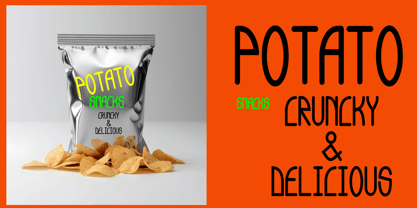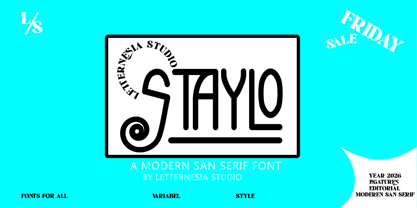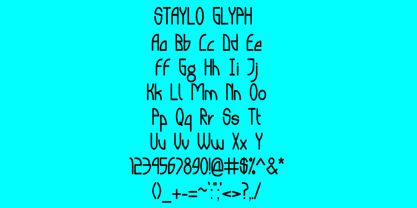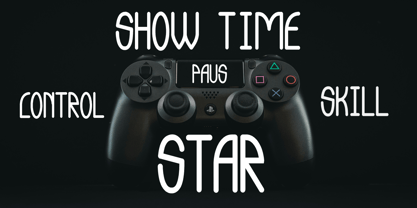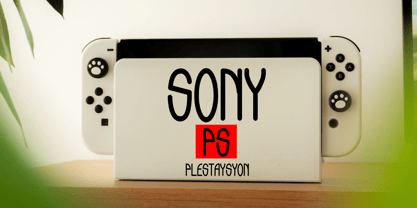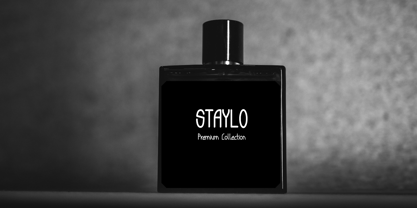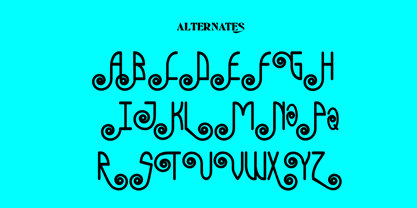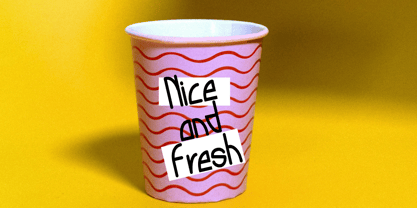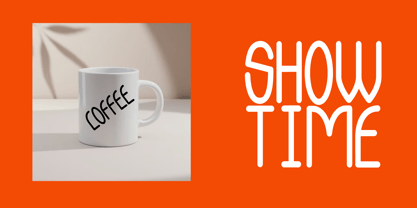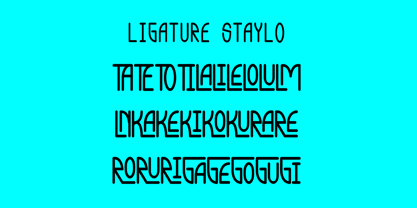
Staylo
by Letternesia studio
The Staylo Font Family was designed by Ta Siyo and published by Letternesia studio. Staylo contains 2 styles and family package options. More about this family
STAYLO is a bold and stylish display font designed to make a strong visual impact. With its modern shapes and confident character, STAYLO instantly grabs attention and adds personality to any design project. This font is perfect for headlines, posters, branding, packaging, logos, social media graphics, and eye-catching titles. The unique letterforms give your design a trendy and powerful look, making it ideal for creative projects that need to stand out. STAYLO is created for designers who want something fresh, modern, and memorable. Whether you're working on branding, advertising, or product packaging, this font will help your design look more professional and attractive. Make your design bold. Make it stylish. Make it STAYLO.
Designers: Ta Siyo
Foundry: Letternesia studio